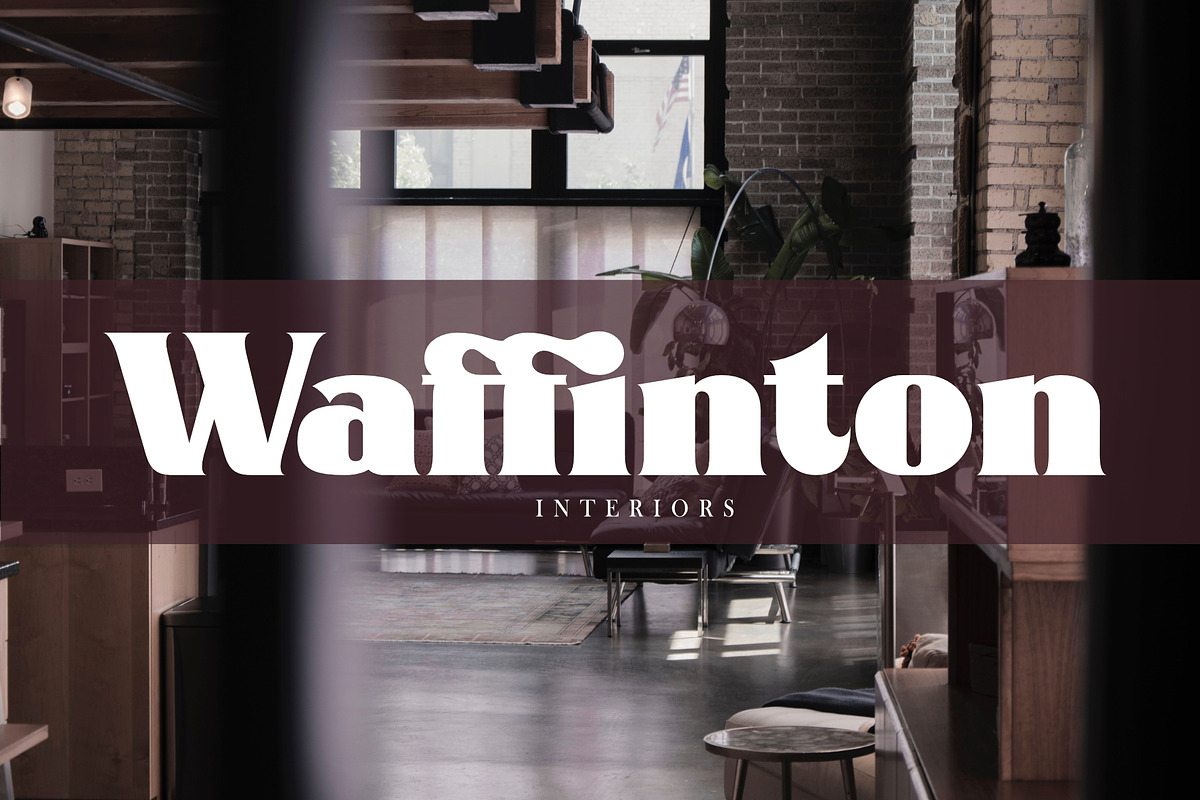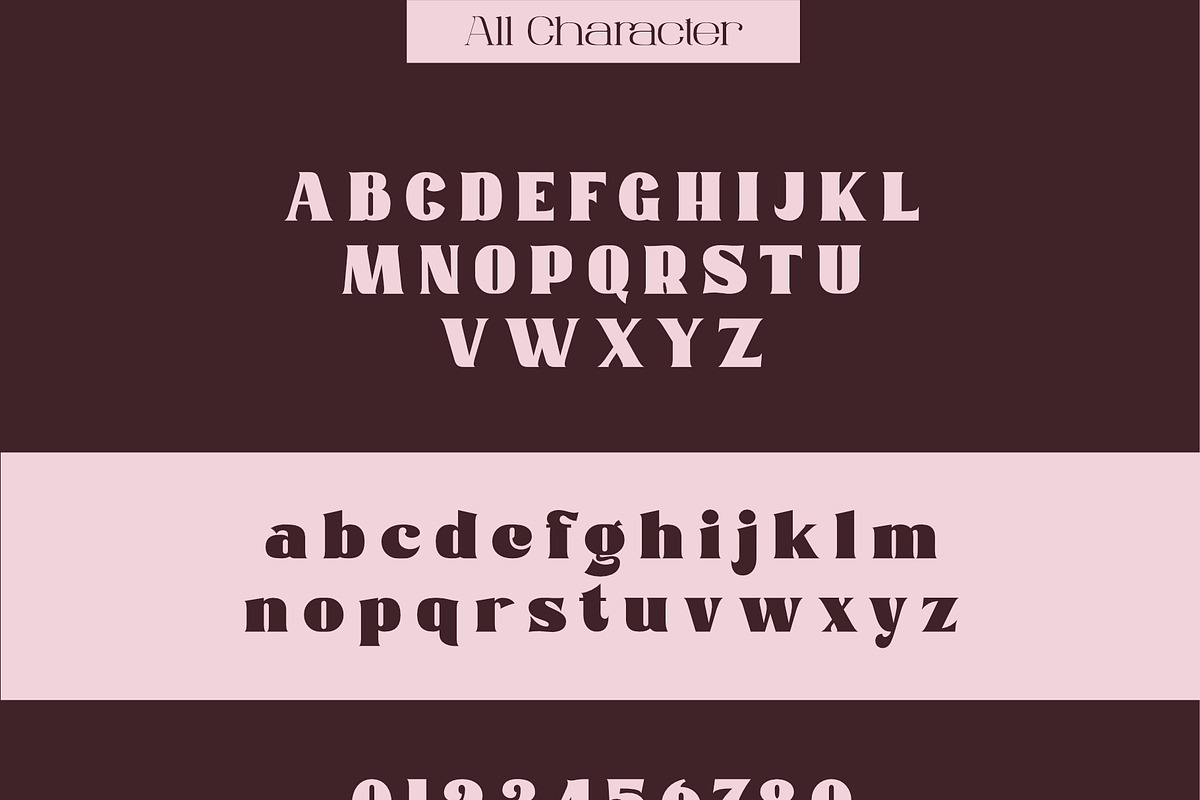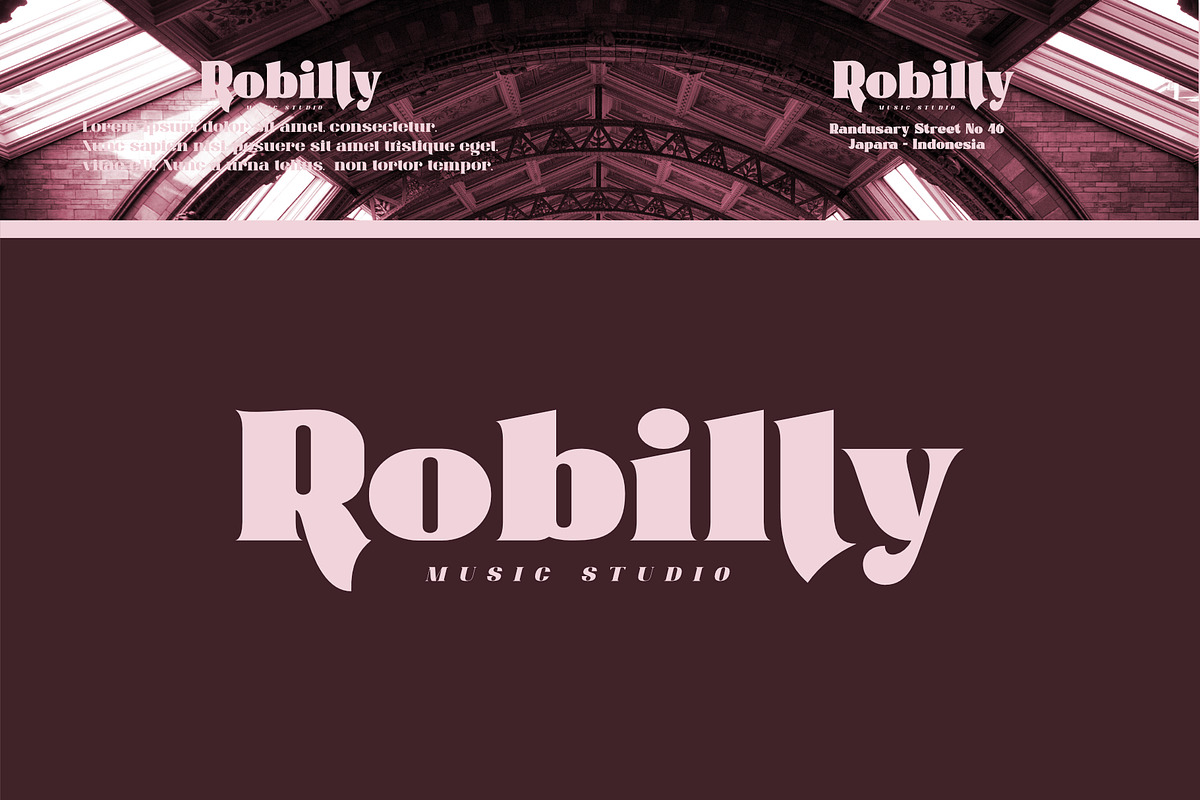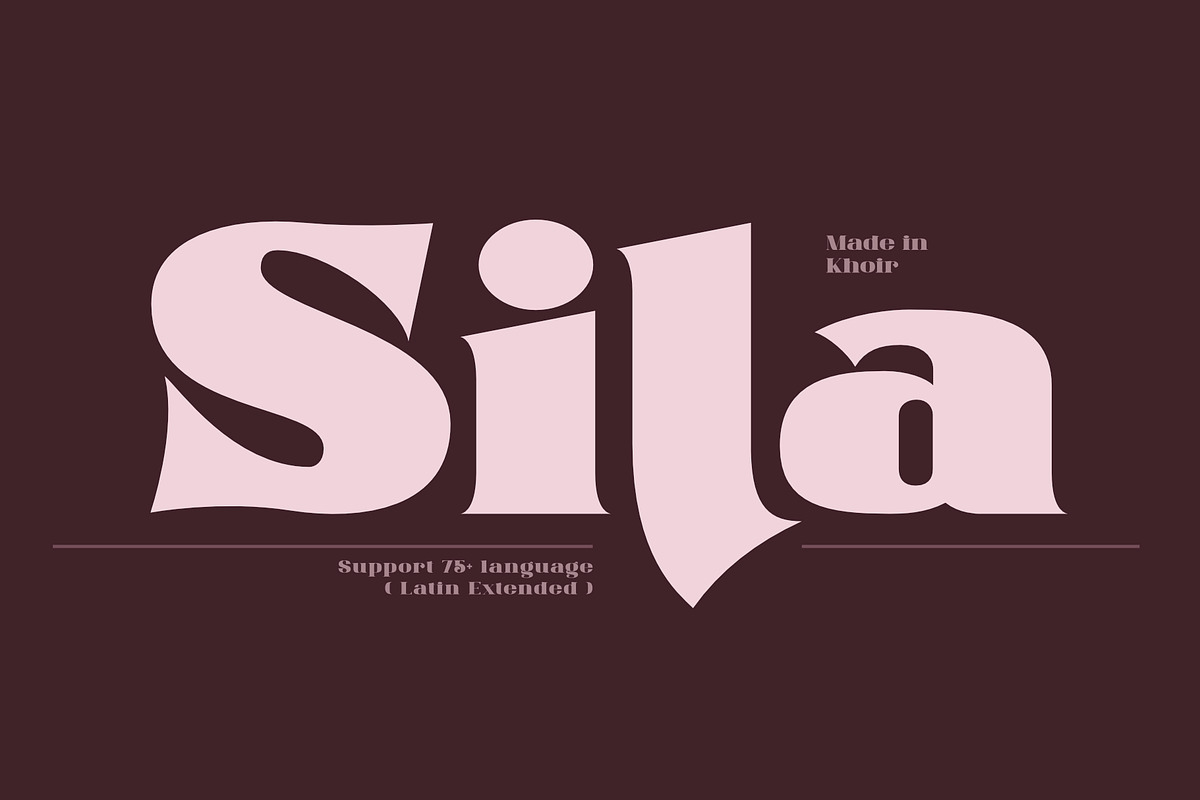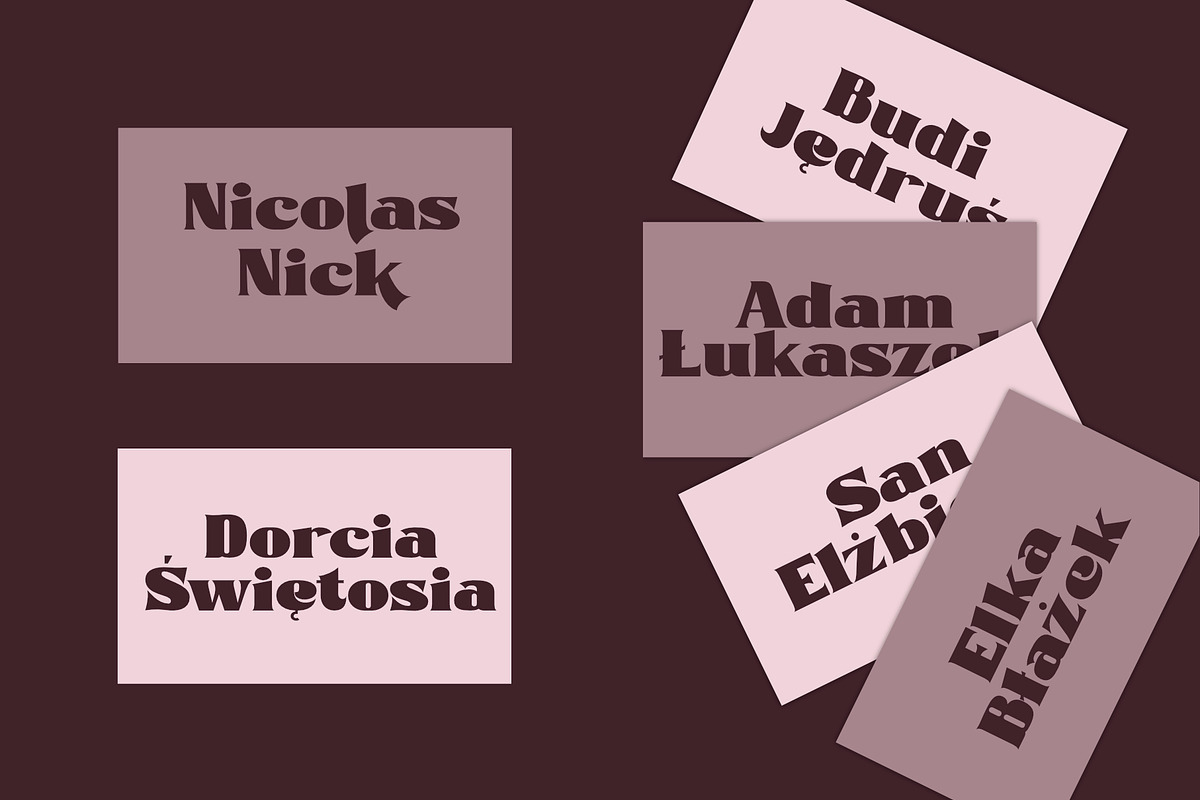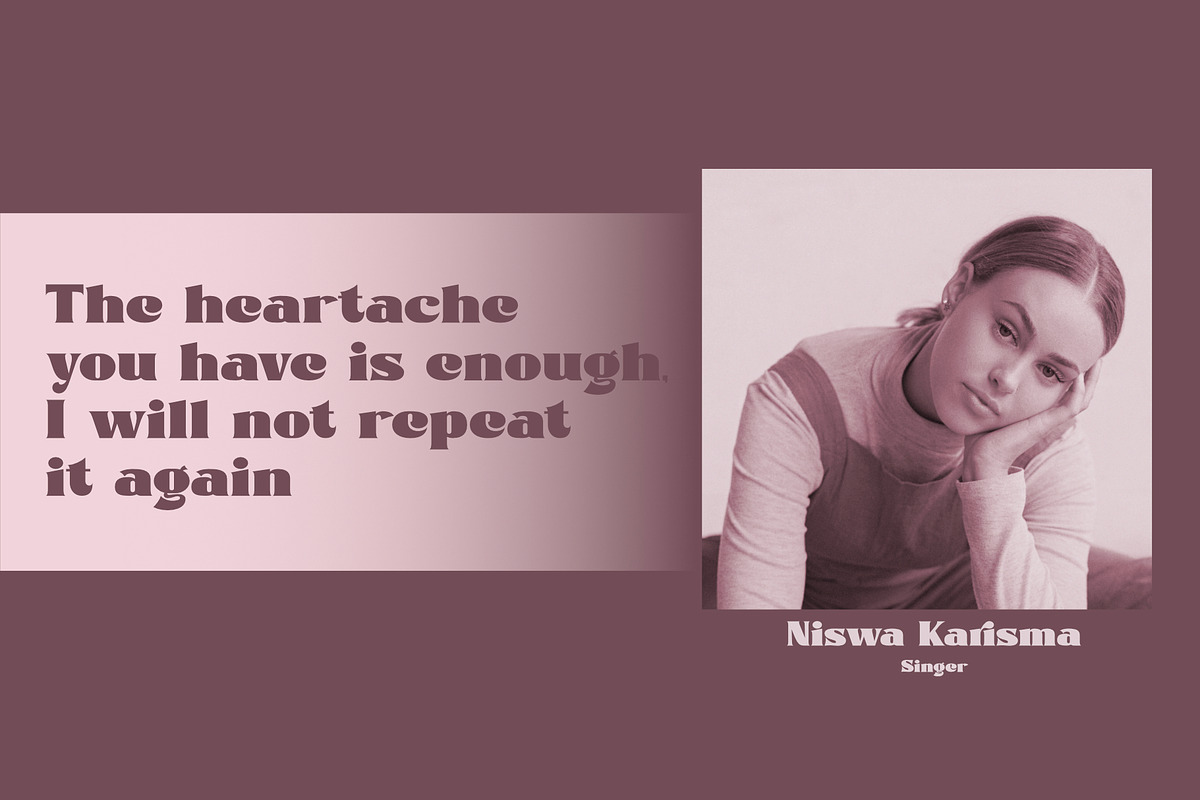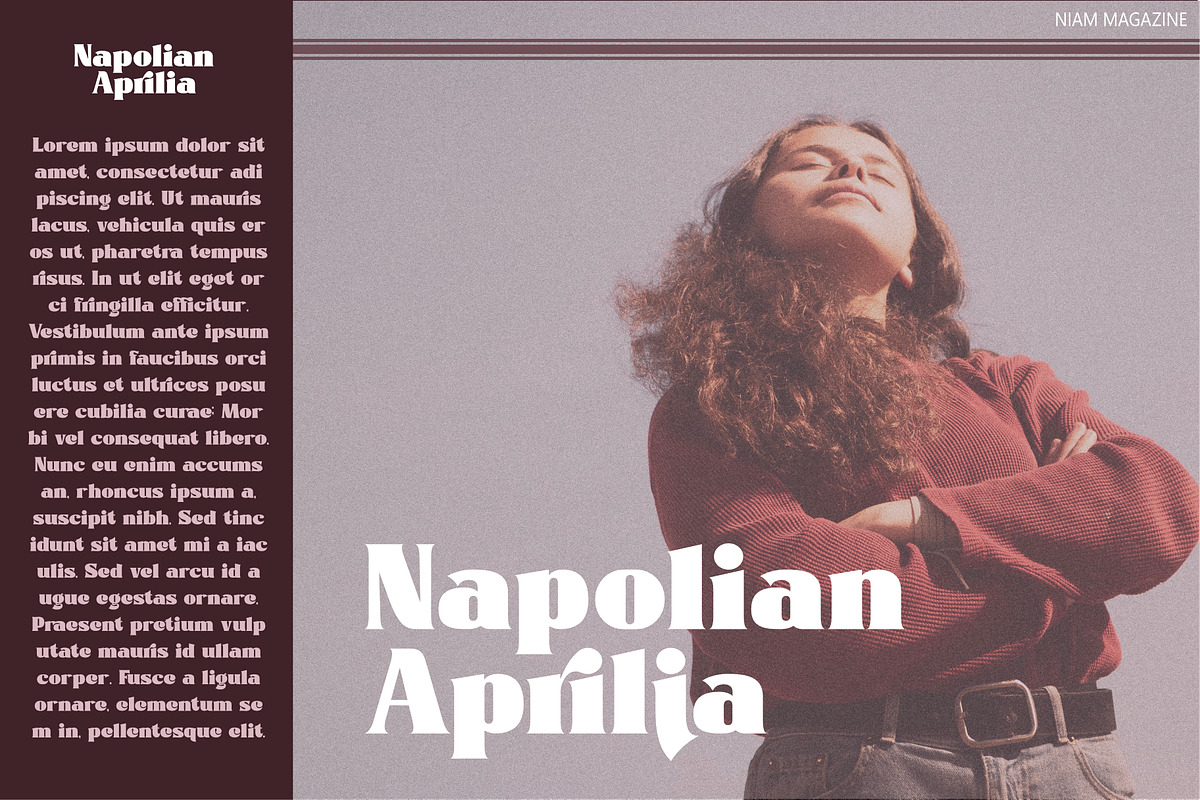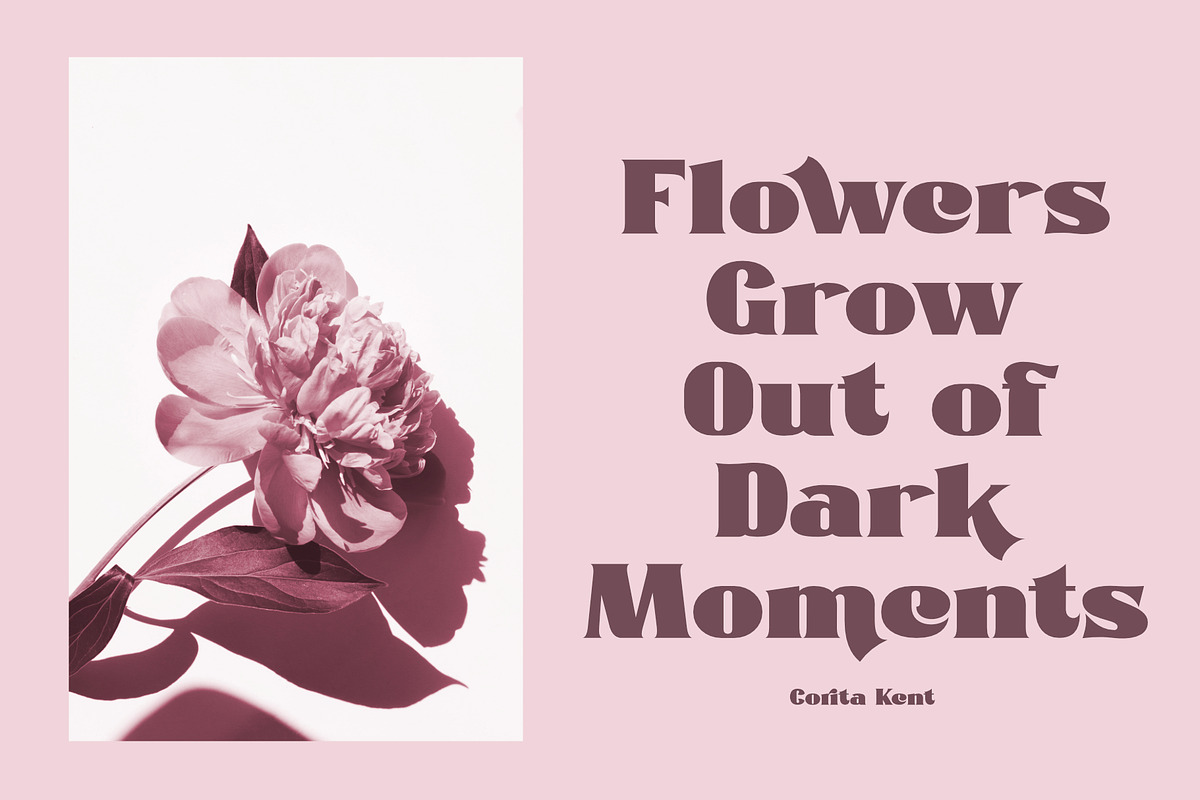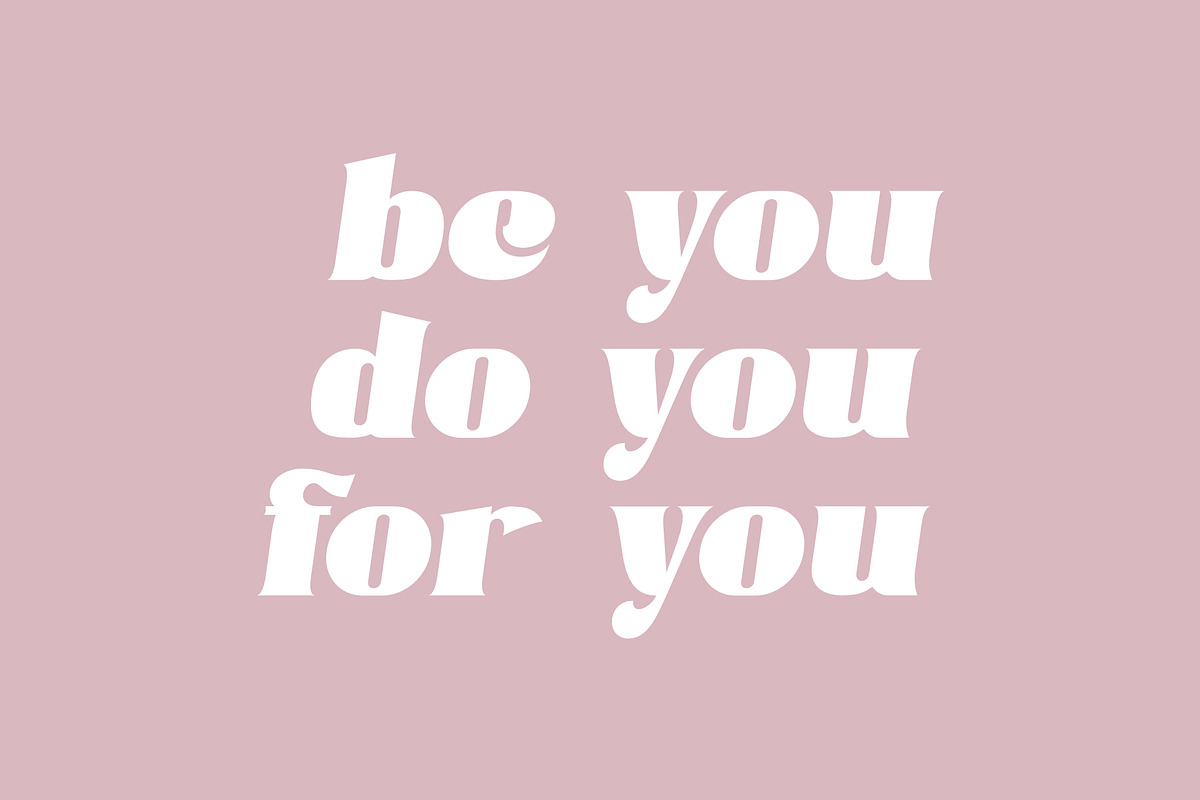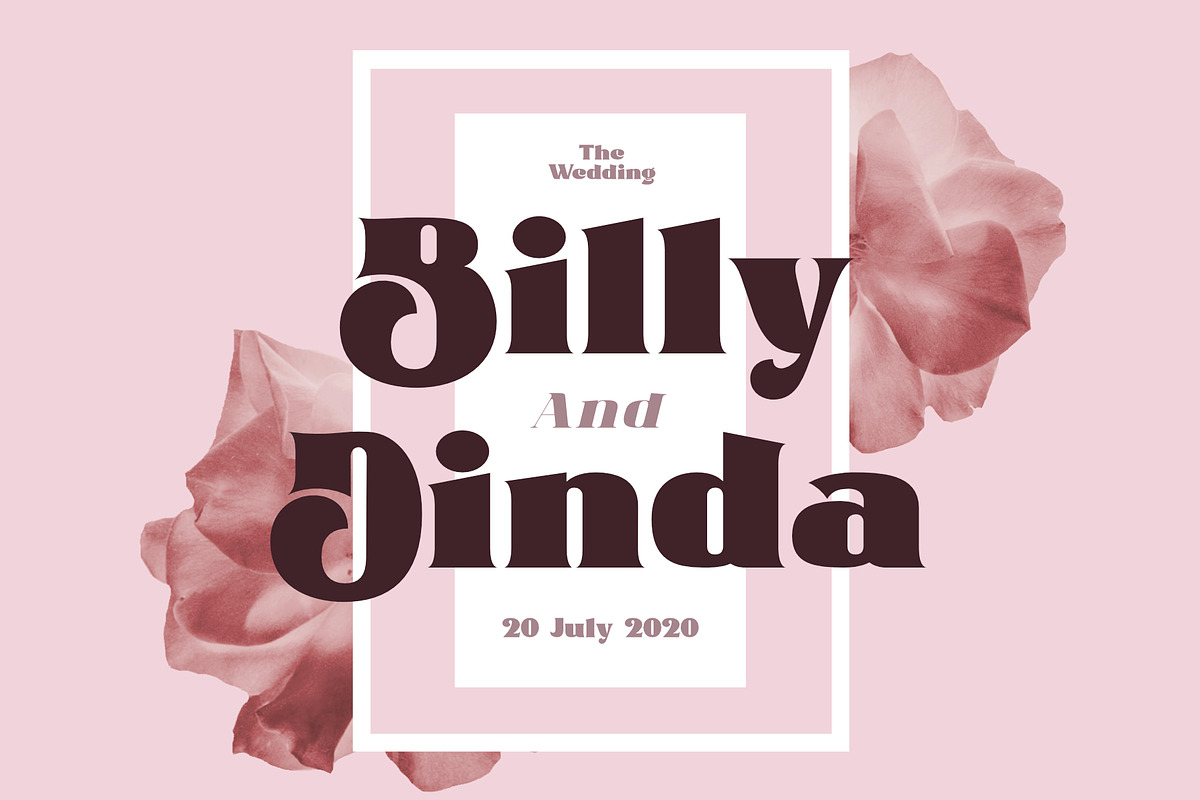
Sila - Serif Modern
Introducing, Sila, Modern Serif. This font has an attractive and elegant alternative and several ligatures that enhance it, making your font / logo more attractive. This font has a bold and smooth shape, making this font look unique but doesn't leave an elegant impression. This font is suitable to be applied especially in logos, invitations, novels, books, magazines, labels, greeting / wedding cards. So what are you waiting for!
- Uppercase Characters
- Lowercase Characters
- Support 75+ Language